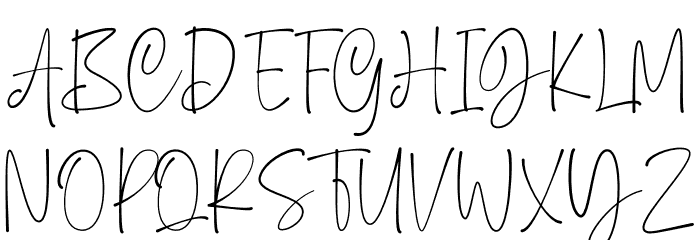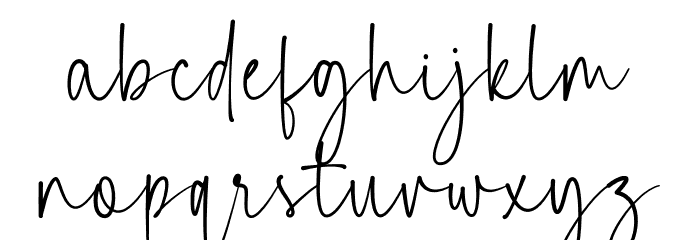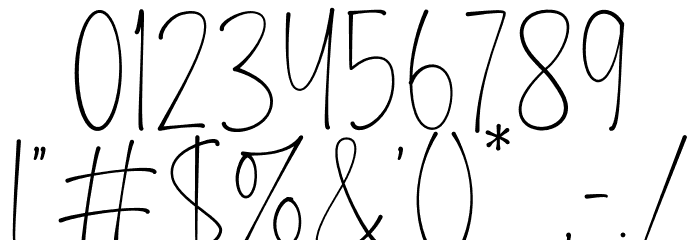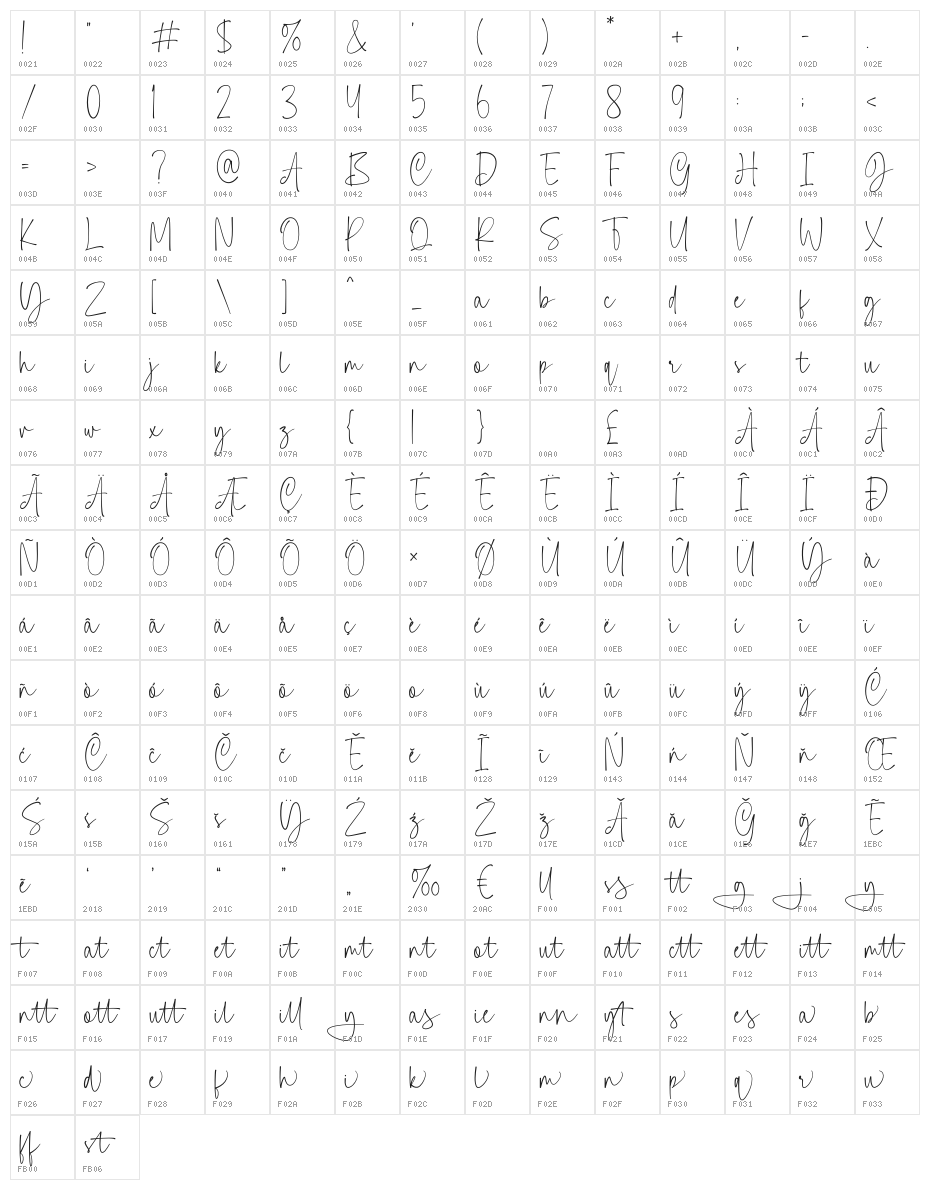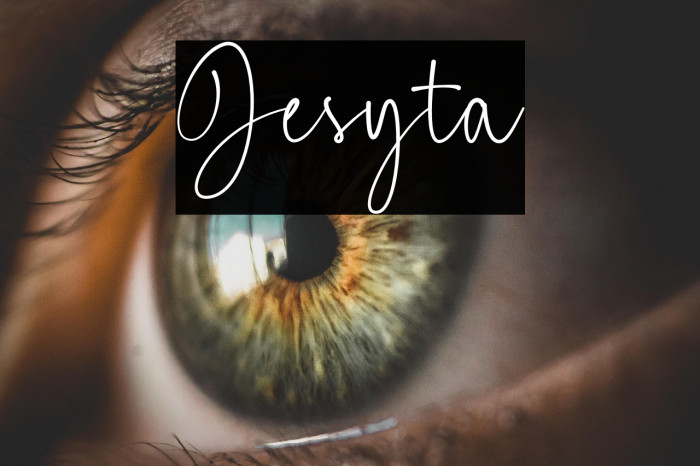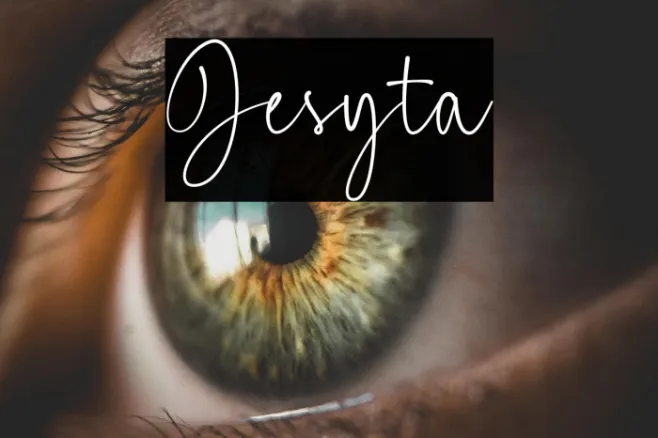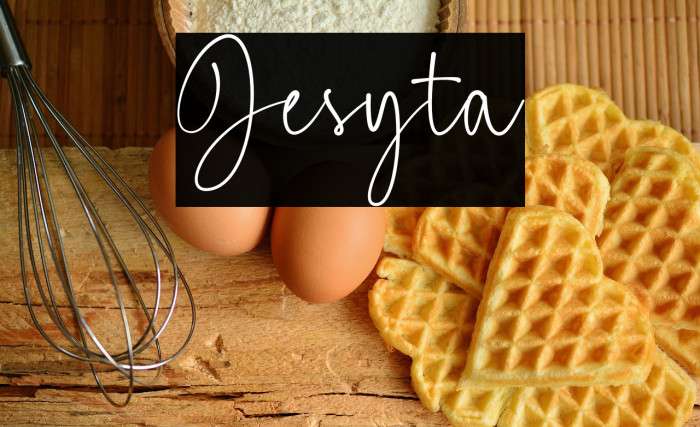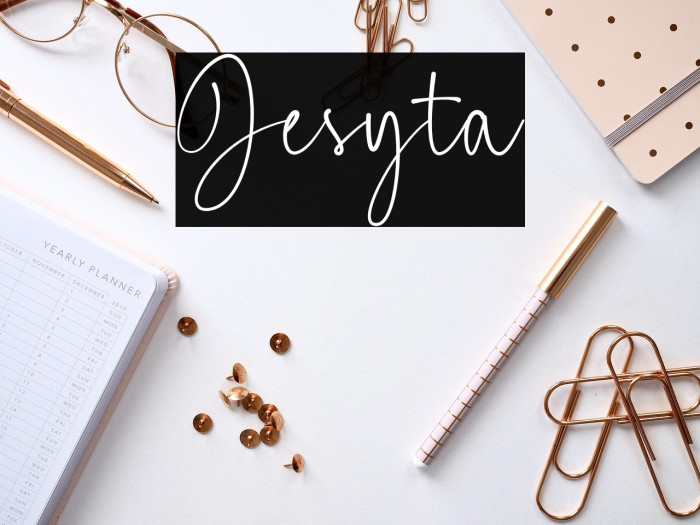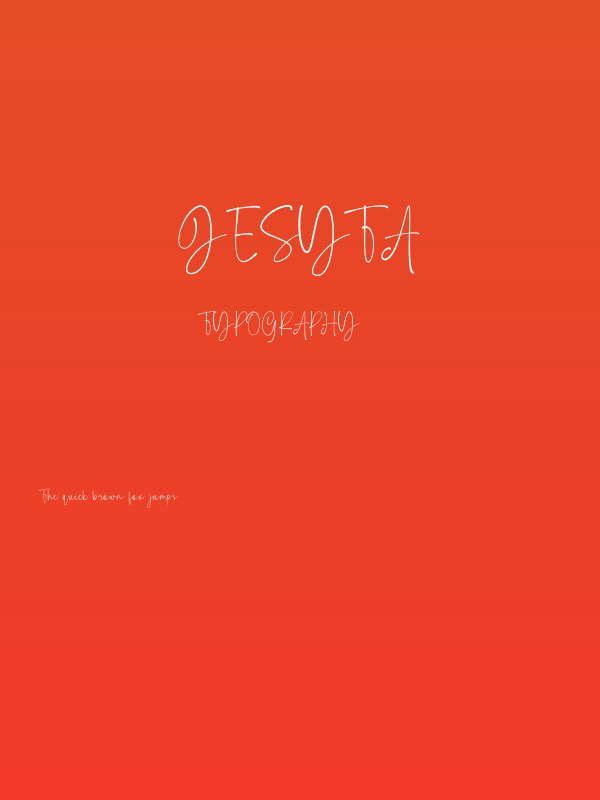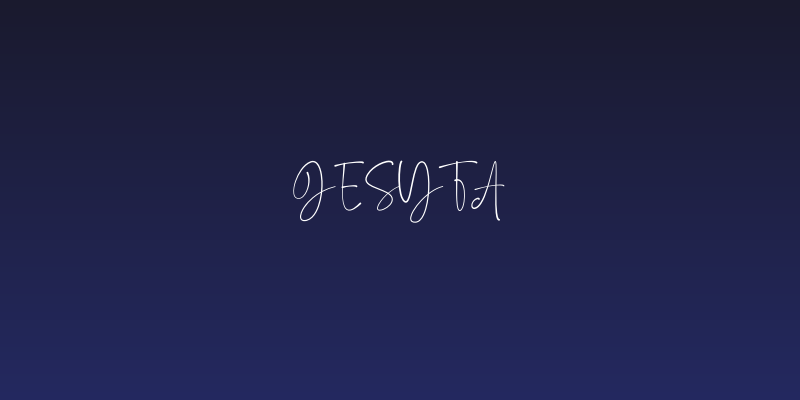
Jesyta Font
A playful, handwritten script font with a casual and flowing style, featuring irregular strokes and a personal touch.
Casual handwritten script font.
- Proposed Projects: Greeting cards, invitations, personal branding.
- Category: Handwritten
- Overall Style: Casual, Playful
- Use Case: Logos, Invitations, Personal projects